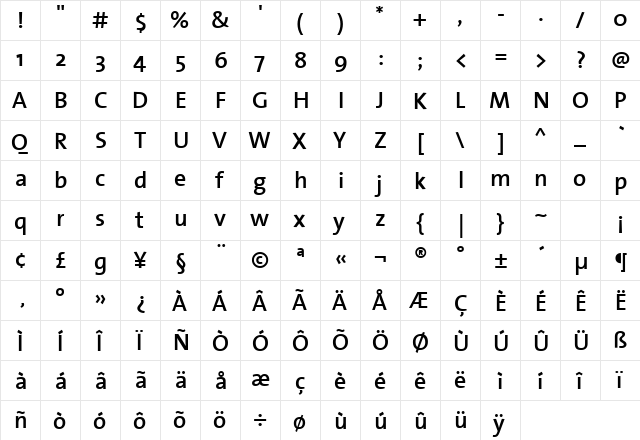
TheSansSemiBold-Plain Regular Font Preview
TheSansSemiBold-Plain Regular
TheSansSemiBold-Plain Regular Font Details
Design Context for TheSansSemiBold-Plain Typeface
TheSansSemiBold-Plain is a composed and adaptable typeface that performs quietly and consistently across a wide range of design contexts. The heavy weight commands attention and anchors typographic hierarchies.
Pro Tip: Use TheSansSemiBold-Plain in both headline and body roles to test its range before committing to a single application.